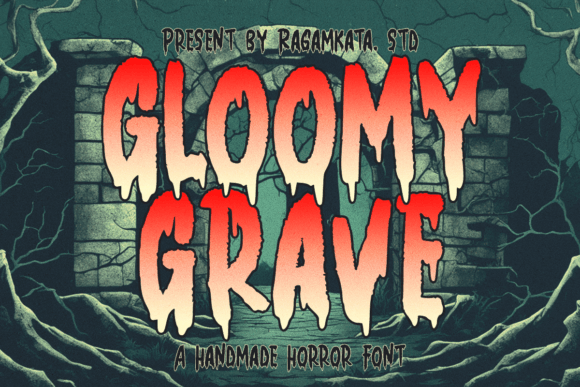
Gloomy Grave Font: The Ultimate Horror Font for Spine-Chilling Designs
Are you looking for a font that captures the essence of Halloween and spine-chilling terror? Look no further than Gloomy Grave, a handmade horror font that blends the eerie, rough textures of haunted nights with the sinister charm of classic horror comics. In this article, we’ll introduce you to the Gloomy Grave font and explore its features, uses, and benefits.
Introducing Gloomy Grave Font
Gloomy Grave is a unique and terrifying font that drips with dark allure. Each character is crafted to evoke the haunting movements of ghosts and the jagged edges of ghouls clawing their way from the grave. The font’s creepy, blood-soaked letters are perfect for creating terrifyingly authentic designs that will leave your audience shivering with fear.
Whether you’re designing a Halloween event poster, a horror movie title, or anything that needs a touch of macabre, Gloomy Grave is the perfect choice. The font’s uniquely sinister style will make your work stand out and leave a lasting impression on your audience.
Features of Gloomy Grave Font
Gloomy Grave font comes with a range of features that make it perfect for creating spine-chilling designs. Some of its key features include:
- Handmade with love and care: Gloomy Grave is a handmade font, crafted with love and care to ensure that every character is unique and terrifying.
- Eerie and rough textures: The font features eerie and rough textures that evoke the feeling of haunted nights and abandoned graveyards.
- Sinister charm: Gloomy Grave has a sinister charm that is reminiscent of classic horror comics and movies.
- Creepy, blood-soaked letters: The font’s letters are creepy and blood-soaked, adding to the overall sense of terror and fear.
- Perfect for horror designs: Gloomy Grave is perfect for creating horror movie titles, Halloween event posters, and any other design that needs a touch of macabre.
Uses of Gloomy Grave Font
Gloomy Grave font can be used for a range of design projects, including:
- Halloween event posters: Create terrifyingly authentic Halloween event posters that will leave your audience shivering with fear.
- Horror movie titles: Use Gloomy Grave to create horror movie titles that will send chills down the spines of your audience.
- Horror-themed merchandise: Create horror-themed merchandise, such as t-shirts, mugs, and phone cases, that will appeal to horror fans.
- Web and mobile design: Use Gloomy Grave to add a touch of horror to your web and mobile designs, creating a unique and memorable user experience.
Benefits of Using Gloomy Grave Font
There are many benefits to using Gloomy Grave font, including:
- Unique and terrifying designs: Gloomy Grave allows you to create unique and terrifying designs that will leave a lasting impression on your audience.
- Perfect for horror-themed designs: The font is perfect for creating horror-themed designs that will appeal to horror fans.
- High-quality font: The font is of high quality, ensuring that your designs look professional and polished.
Tips for Using Gloomy Grave Font
Here are some tips for using Gloomy Grave font:
- Use it sparingly: Use Gloomy Grave sparingly to create a greater impact. Overusing the font can make your design look cluttered and overwhelming.
- Pair it with other fonts: Pair Gloomy Grave with other fonts to create a unique and interesting design.
- Experiment with different colors: Experiment with different colors to find the perfect combination that will make your design stand out.
- Use it for headlines and titles: Use Gloomy Grave for headlines and titles to create a bold and eye-catching design.
In conclusion, Gloomy Grave font is a unique and terrifying font that is perfect for creating spine-chilling designs. With its creepy, blood-soaked letters and eerie textures, it’s the perfect choice for horror-themed designs. Whether you’re designing a Halloween event poster, a horror movie title, or anything that needs a touch of macabre, Gloomy Grave is the perfect choice. So why wait? Download Gloomy Grave today and start creating terrifyingly authentic designs that will leave your audience shivering with fear.